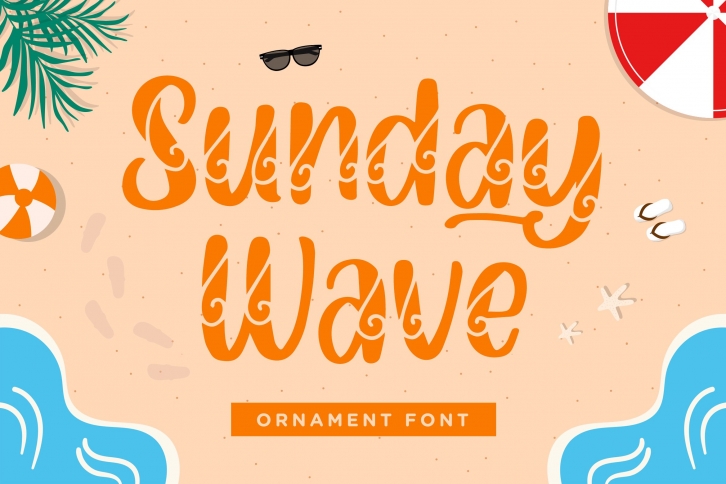
Sunday Wave is a beautiful font that was designed by Typefactory. It's a great choice for designers and creatives who need such a font. It was released on September 20, 2021 and the file size is 21.76 MB. Sunday Wave may give a more youthful, expressive and casual look to your project. It is a very beautiful, refined, elegant, and high-quality font.